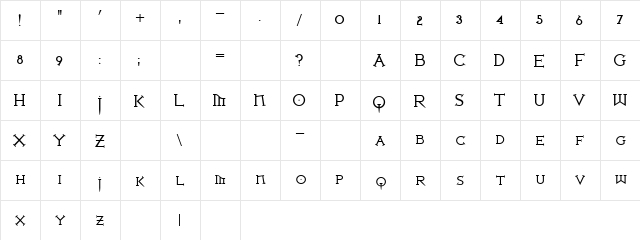
Iron League smallcaps Regular
Design Context for Iron League smallcaps Typeface
Iron League smallcaps takes a measured approach to typography — its balanced proportions and neutral character make it a reliable workhorse for both digital and print work.